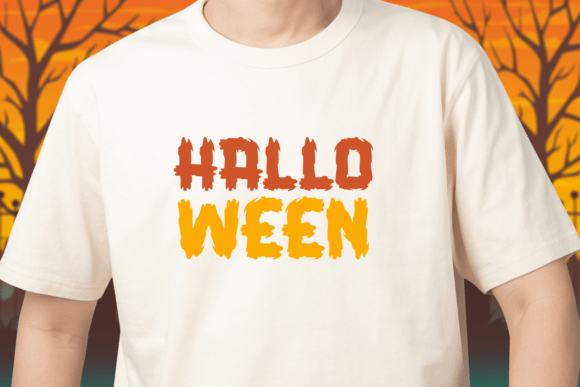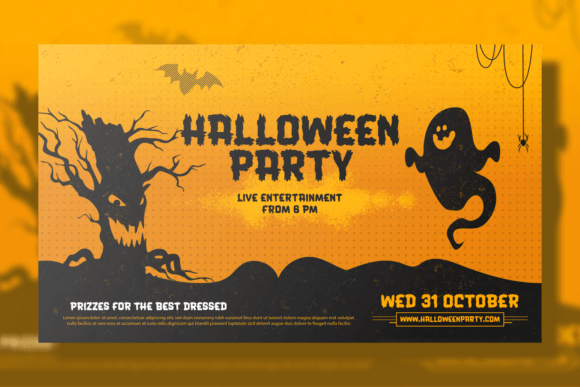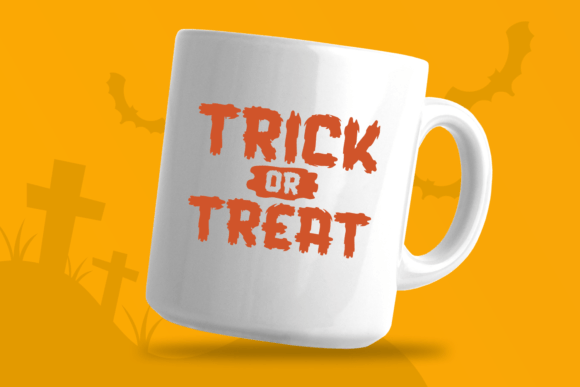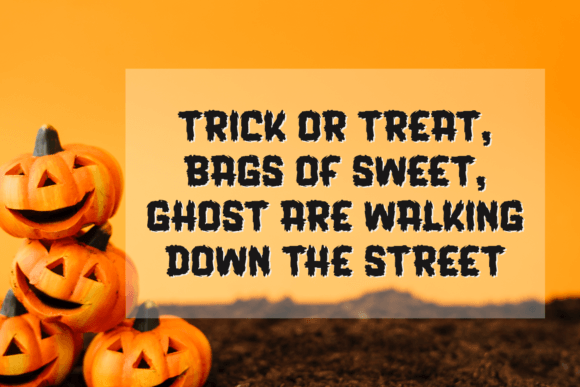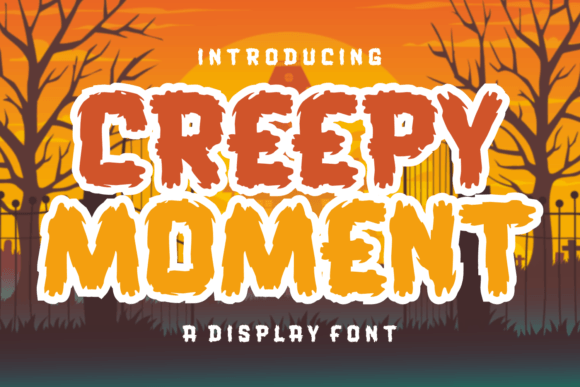
Unleash the Charm of Creepy Moment Font: A Delightful Display Font for Your Designs
Are you tired of using the same old fonts for your designs? Look no further! Introducing Creepy Moment Font, a cute and charming display font that’s about to take your creations to the next level. With its whimsical and quirky personality, this font is sure to brighten up each of your designs and leave a lasting impression on your audience.
What Makes Creepy Moment Font So Special?
Creepy Moment Font is a one-of-a-kind display font that’s perfect for designers and crafters looking to add a touch of personality to their work. Its unique and playful design makes it ideal for a wide range of projects, from posters and flyers to social media graphics and branding materials. Whether you’re creating something for a client or for your own personal brand, this font is sure to make your designs stand out from the crowd.
The Characteristics of Creepy Moment Font
So, what makes Creepy Moment Font so special? Here are just a few of its key characteristics:
- Cute and charming: Creepy Moment Font has a playful and endearing quality that’s sure to capture the hearts of your audience.
- Whimsical and quirky: This font has a fun and carefree personality that’s perfect for designers who want to add a touch of whimsy to their work.
- Display font: Creepy Moment Font is designed specifically for display purposes, making it perfect for headlines, titles, and other attention-grabbing elements.
- Easy to read: Despite its playful design, Creepy Moment Font is still easy to read, making it perfect for use in a wide range of projects.
How to Use Creepy Moment Font in Your Designs
Now that you know a little bit more about Creepy Moment Font, let’s talk about how to use it in your designs. Here are a few ideas to get you started:
- Posters and flyers: Use Creepy Moment Font as a headline or title font to grab the attention of your audience.
- Social media graphics: Add a touch of personality to your social media graphics with Creepy Moment Font.
- Branding materials: Use Creepy Moment Font as a logo font or in your branding materials to add a touch of whimsy to your brand.
- Invitations and cards: Creepy Moment Font is perfect for use in invitations, cards, and other personal projects.
Tips for Getting the Most Out of Creepy Moment Font
Here are a few tips for getting the most out of Creepy Moment Font:
- Experiment with different colors: Creepy Moment Font looks great in a wide range of colors, so don’t be afraid to experiment and find the perfect hue for your design.
- Pair it with other fonts: Creepy Moment Font pairs well with a wide range of other fonts, so try pairing it with some of your favorite fonts to create a unique and interesting look.
- Use it sparingly: While Creepy Moment Font is a beautiful font, it can be a bit overwhelming if used too much. Use it sparingly to add a touch of personality to your design.
| Font Name | Creepy Moment Font |
| Author | Faris (7NTypes) |
In conclusion, Creepy Moment Font is a delightful display font that’s sure to add a touch of charm and personality to your designs. With its whimsical and quirky personality, this font is perfect for designers and crafters looking to create unique and eye-catching projects. So why not give Creepy Moment Font a try and see the difference it can make in your designs?
Whether you’re a seasoned designer or just starting out, Creepy Moment Font is a great addition to your font collection. So go ahead, get creative, and see what amazing designs you can come up with using this delightful font!